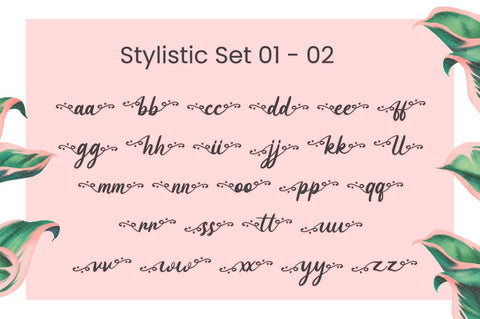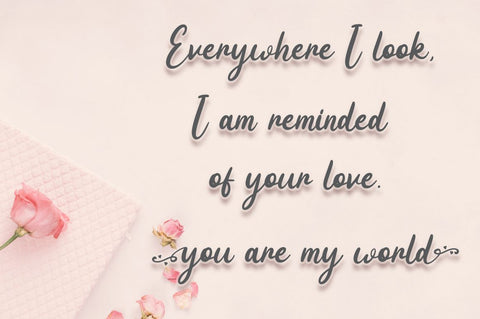
Diana Crush - Wedding Font
Diana Crush is a delicate lovely font with 2 stylistic set. Fall in love with its incredibly versatile style and use it to create spectacular designs!
Diana Crush is perfect for branding, logo, invitation, stationery, social media post, product packaging, merchandise,
blog design, game titles, cute style design, Book/Cover Title and more.
- Beginning & Ending Swash